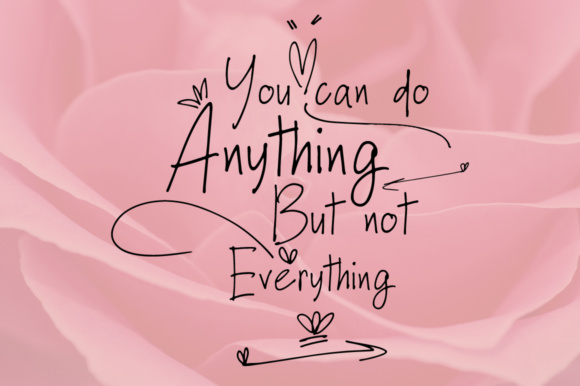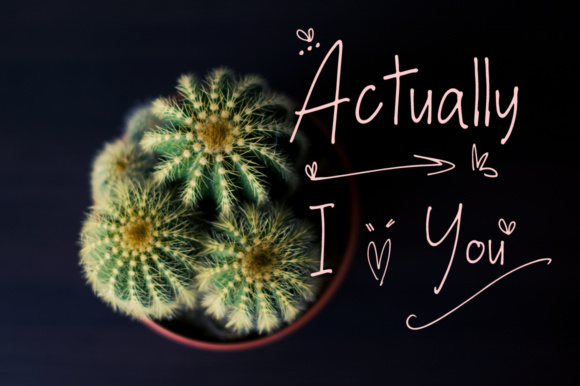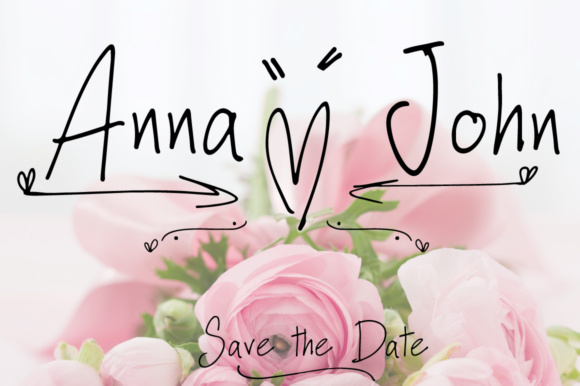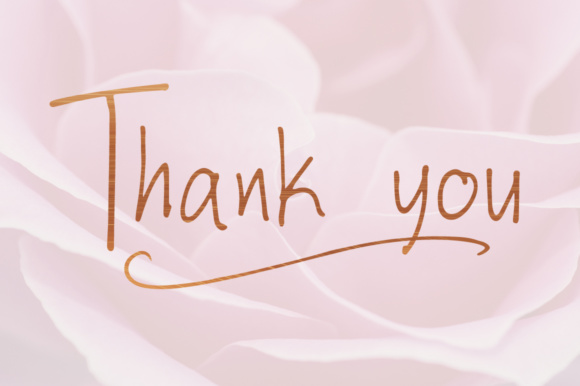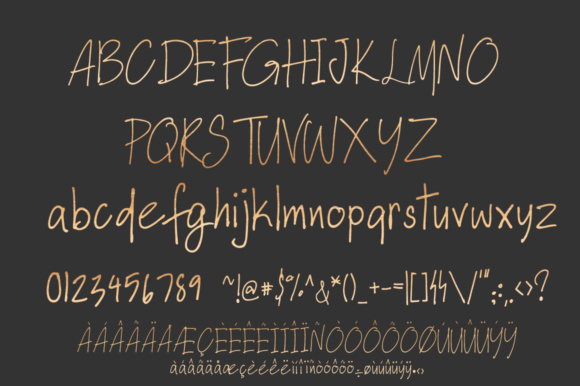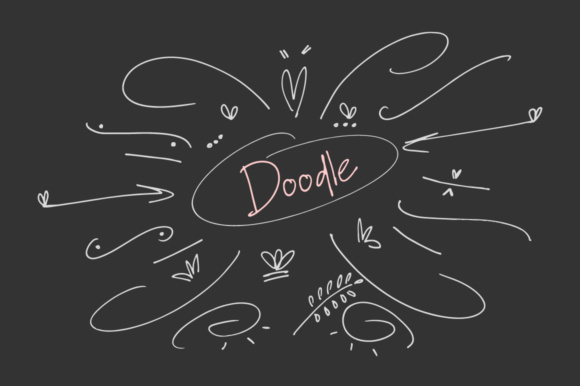
HomeScript FontsMaxwell Font Script Fonts Maxwell Font FacebookXPinterestWhatsApp Maxwell Font Poster 2 Maxwell Font Poster 3 Maxwell Font Poster 4 Maxwell Font Poster 5 Maxwell Font Poster 6 Maxwell Font Poster 7 About Maxwell Font The Maxwell is a beautiful handwritten font. Perfect for adding some elegance to your designs! DOWNLOAD ON CREATIVE FABRICAThis font is sold and delivered by Creative Fabrica. Font Canyon may earn a commission if you buy through this link. People also explored Sakti Font Nictha Font Pyneapple Other Font Noona Font Llamazing Font Heather Columbia Blue Bella Canvas 3001 Bryan Coyne Font Diego Satir Font 346 0 TagsMaxwell Font Previous articleHardolyn FontNext articleVanilla Cream Font LEAVE A REPLY Cancel reply Comment: Please enter your comment! Name:* Please enter your name here Email:* You have entered an incorrect email address! Please enter your email address here Website: Save my name, email, and website in this browser for the next time I comment. Personal Use Free Ernesthuge Personal Use Free Read more about this font Jelly Fish Personal Use Free Read more about this font Ancient Script Personal Use Free Read more about this font Carved Wood Personal Use Free Read more about this font BLOG Exploring Font Trends Shaping Communication in the Digital Era Fonts, like all design elements, are subject to trends. They play a crucial role in communicating a brand's personality,... Top 10 Handwritten Fonts That Elevate Your Designs How to Cut Any Font on Cricut: Convert a Font to SVG (Free) Elegant Wedding Invitation Fonts – Handwritten & Script Fonts